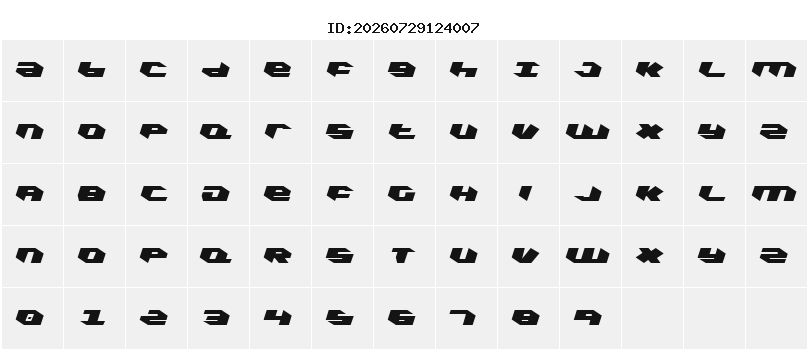
• Font Name: Kubrick Condensed Leftalic
• Font Style: Condensed Leftalic
• Full Font Name: Kubrick Condensed Leftalic
About Kubrick Condensed Leftalic.ttf
Kubrick Condensed Leftalic.ttf is a modern, elegant sans-serif font designed for ultimate readability and visual harmony. Perfect for branding, headlines, web design, and print materials.